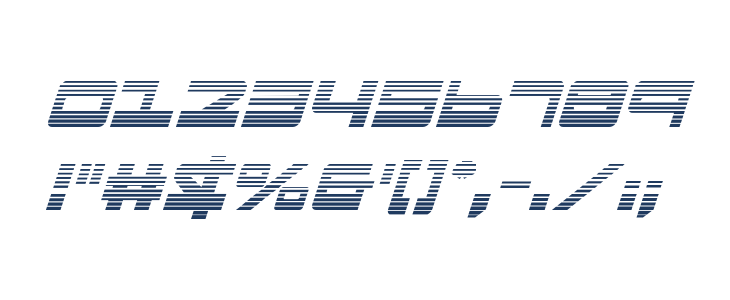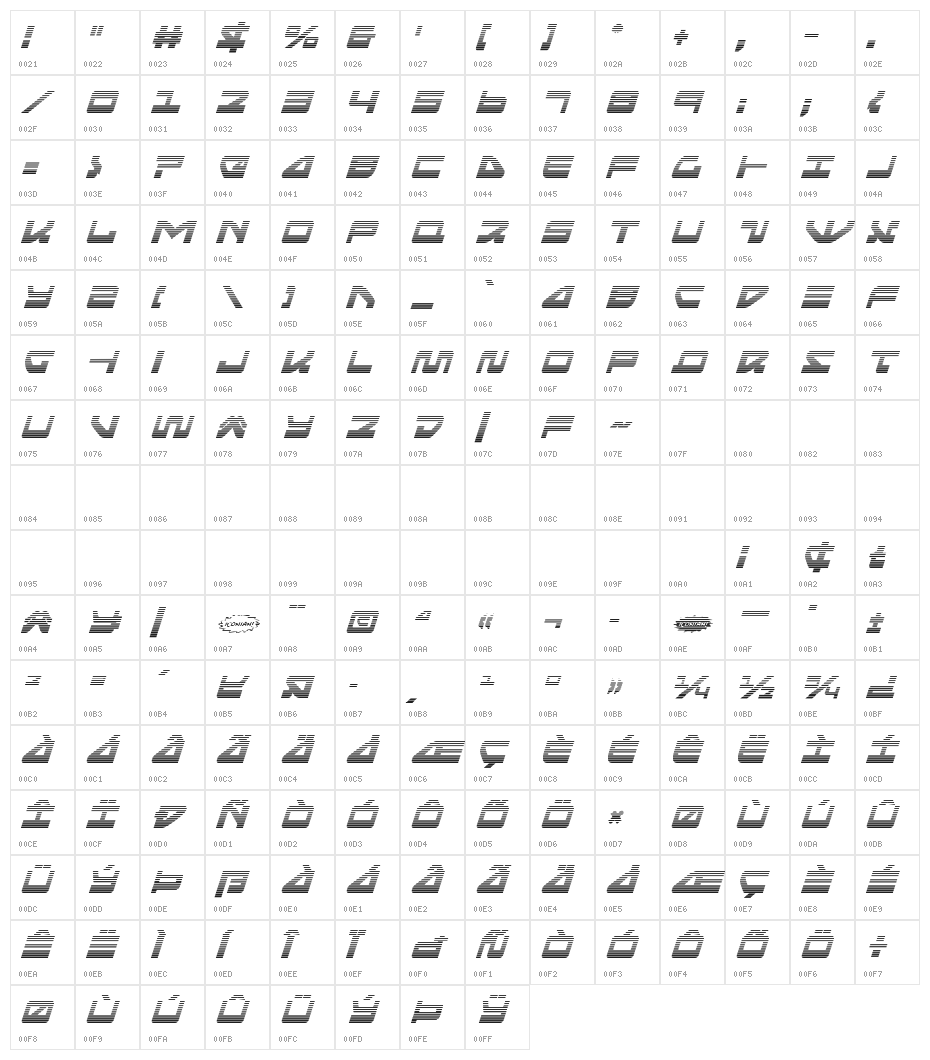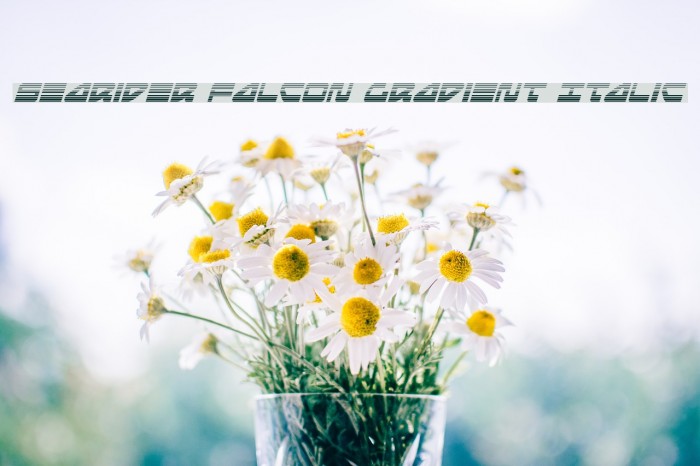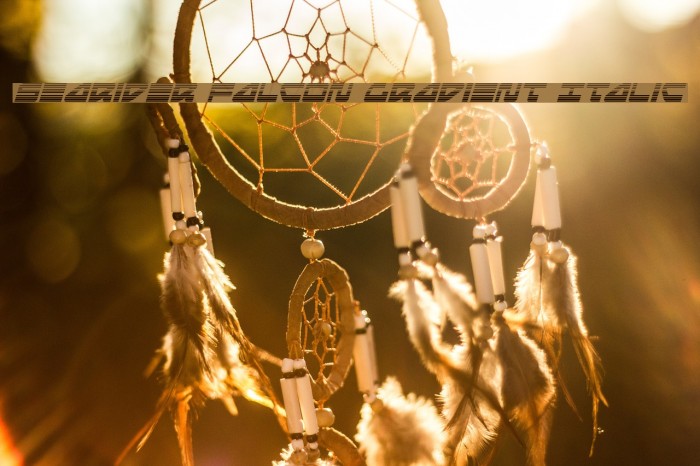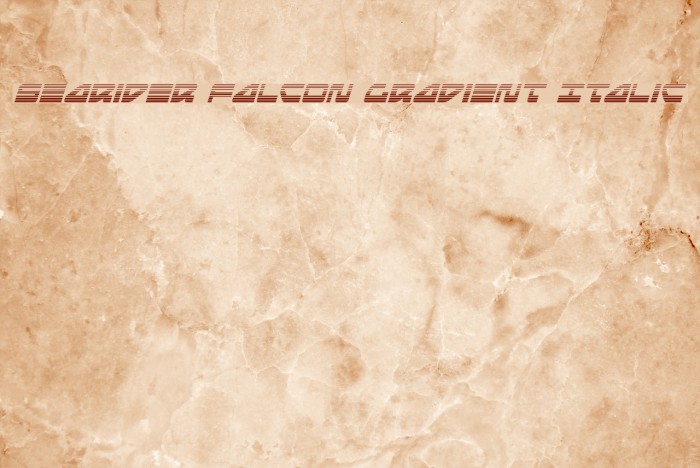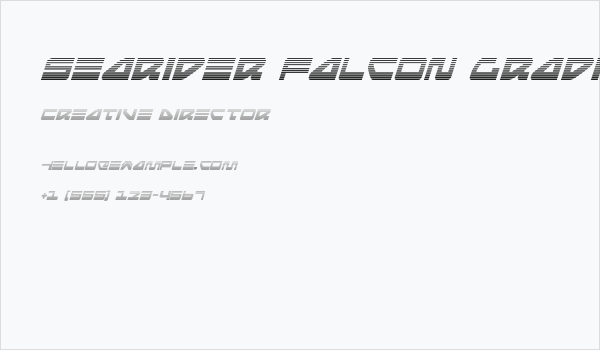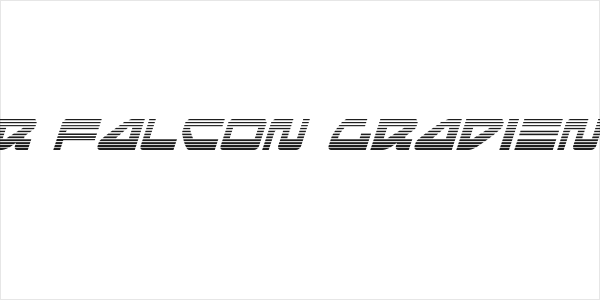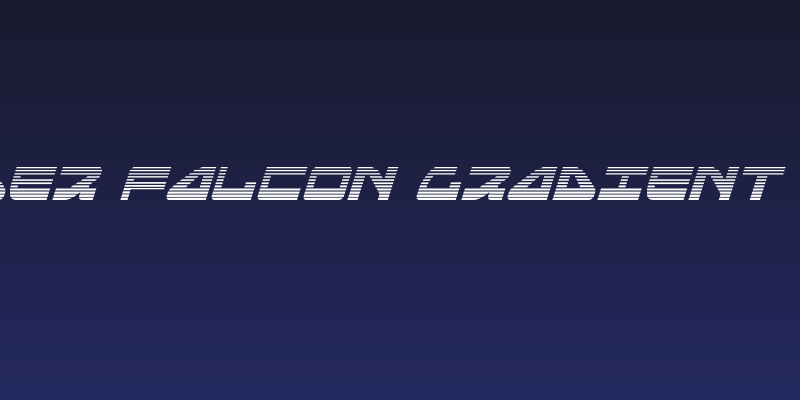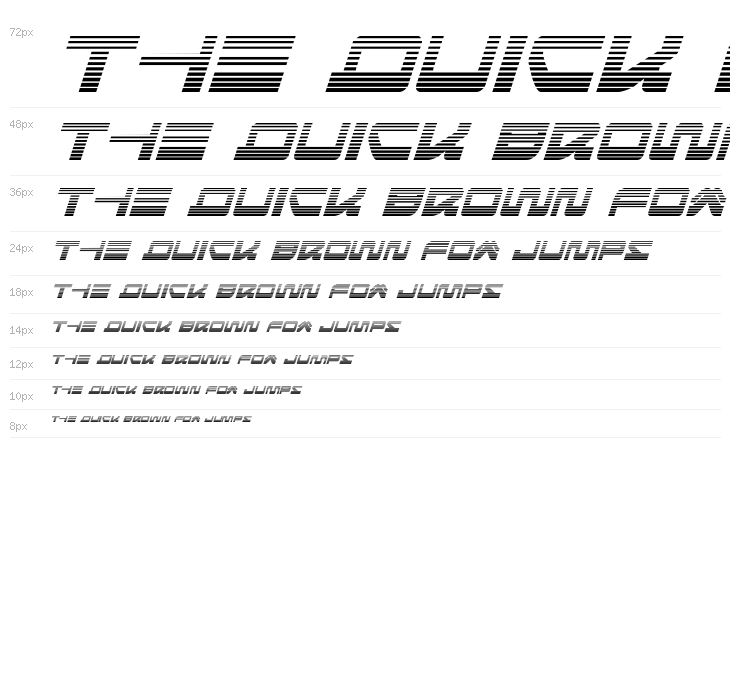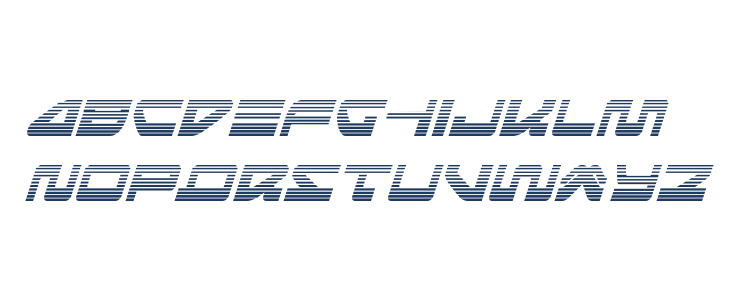
Searider Falcon Gradient Italic Font
Searider Falcon Gradient Italic Description
This font features a dynamic and futuristic design with a distinctive gradient effect. The characters are composed of horizontal lines that create a sense of motion and speed, making it ideal for modern and tech-oriented projects. The italic slant adds an extra layer of dynamism, enhancing its energetic appearance. The uppercase and lowercase letters maintain a consistent style, while the numbers and special characters are equally bold and striking. This font is perfect for projects that require a cutting-edge and innovative look.
| Proposed Projects | Ideal for technology branding, sci-fi posters, video game titles, and modern advertising campaigns. |